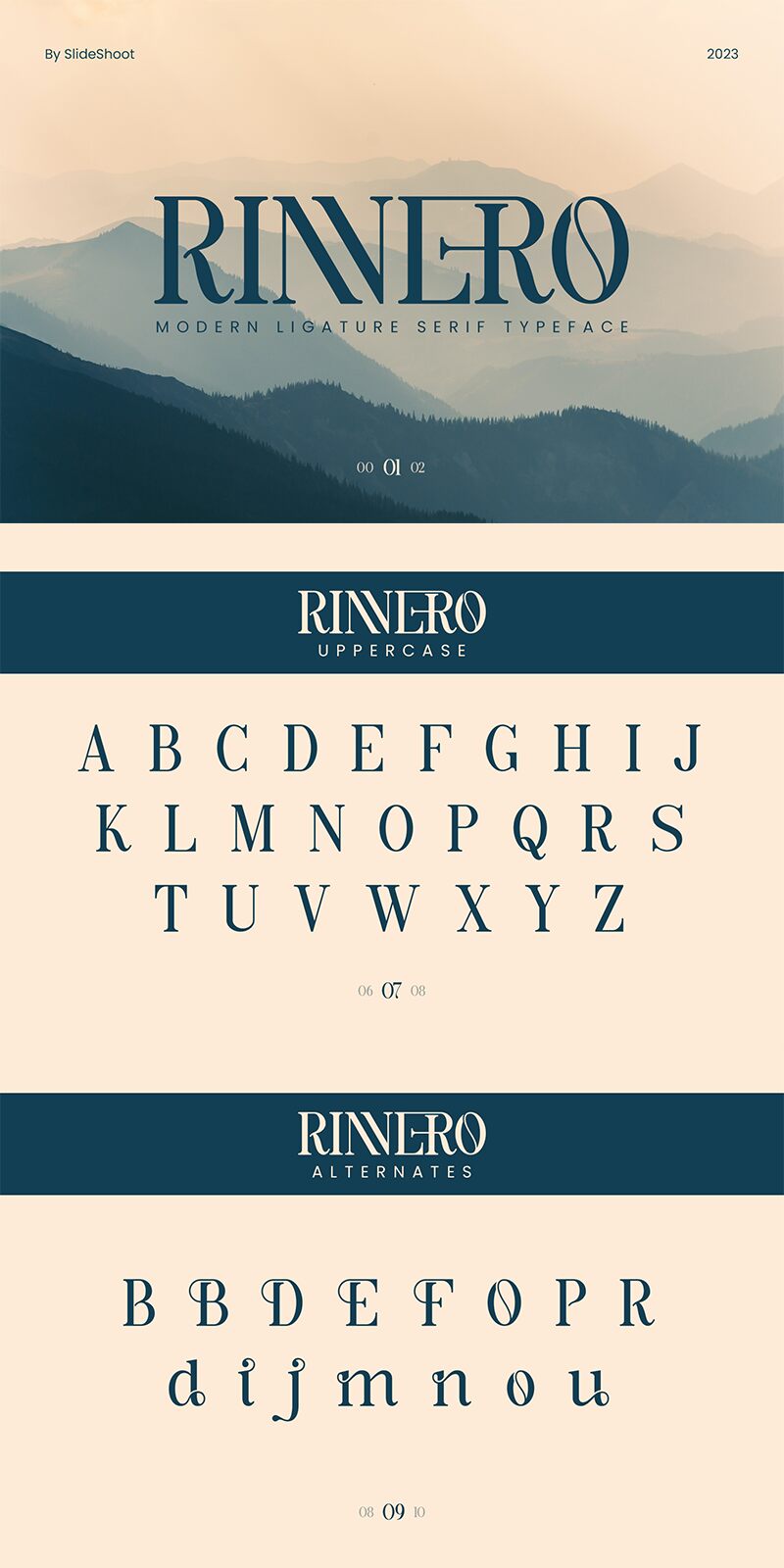
Rinnero font family by Slide Shoot Type combines modern elegance with sophisticated geometric influences. Offered as a free personal use font family in two styles, Rinnero’s decorative serif fonts present a great degree of elegance along with their contemporary aesthetic. The typeface guarantees refinement and style to all your typographic projects, artworks, and merchandise, making it a must-have in every designer’s toolset.
The versatile Rinnero fonts are both legible and professional, which makes them great for both editorial and commercial use. Leverage its high-end appeal by using Rinnero in signage, branding, logotypes, website design, banner design, books, magazines, packaging, and products. The artistic flair that Rinnero carries makes it suitable for posters, apparel design, and so on.